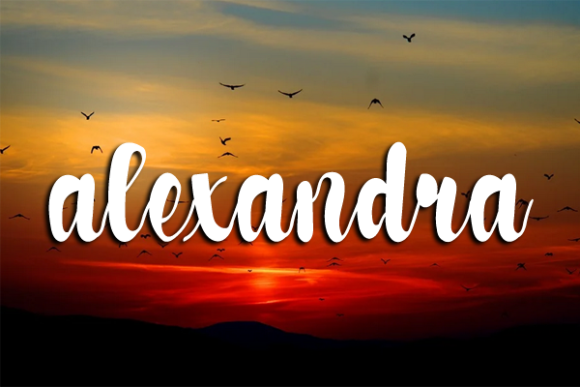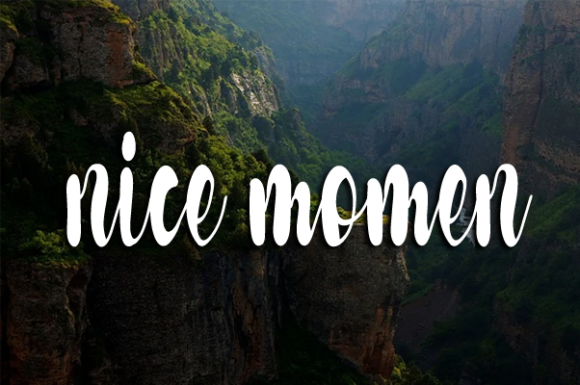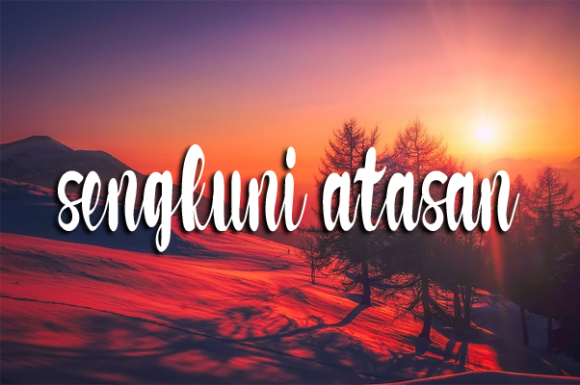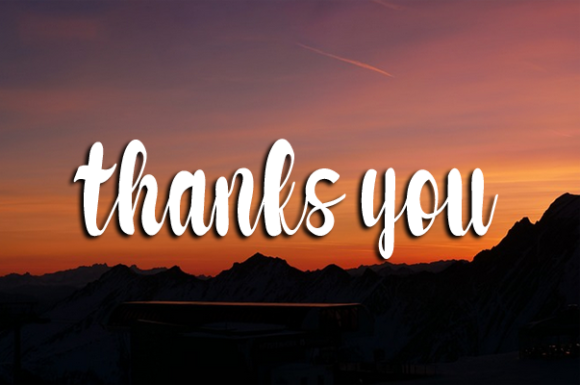
Alexandra Font
About Alexandra Font
Alexandra is a clean, natural and adaptable handwritten font. It looks beautiful on a variety of designs requiring a personalized style, such as wedding invitations, thank you cards, weddings, greeting cards, logos and so on.